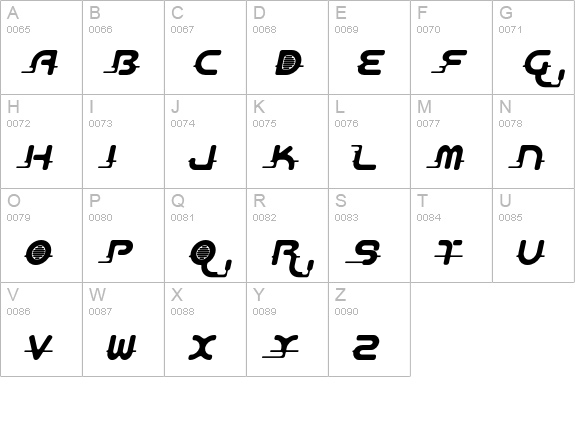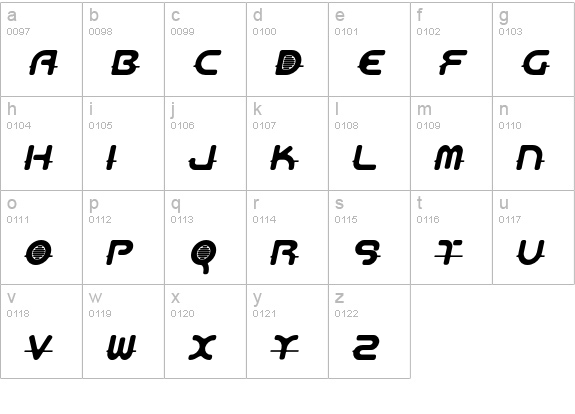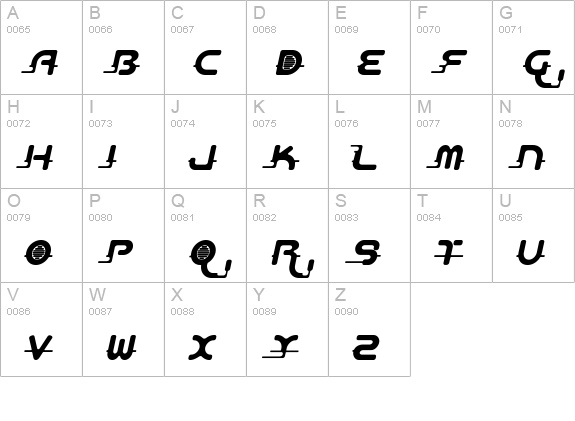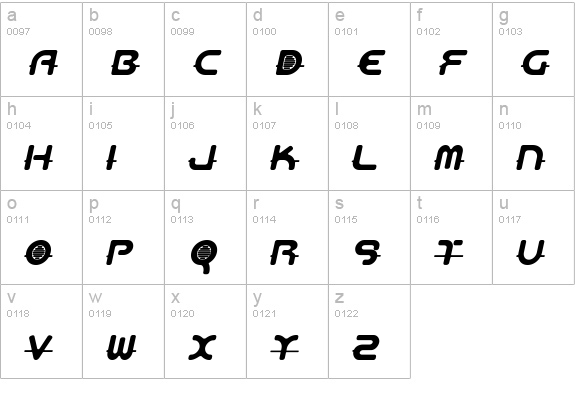
AeosSystemSlope Font Details
AeosSystemSlope is a modern and sleek font that exudes sophistication and elegance. With its clean lines and unique design, this font is perfect for adding a touch of style to any project. The slanted angles of the characters give a sense of movement and dynamism, making it suitable for a wide range of applications. What makes AeosSystemSlope even more appealing is that it is completely free to download. You can easily access this font at FontsMarket.com and enhance your designs with its contemporary aesthetic. Whether you are working on branding, advertising, or creative projects, AeosSystemSlope is a versatile choice that will elevate your work to the next level.